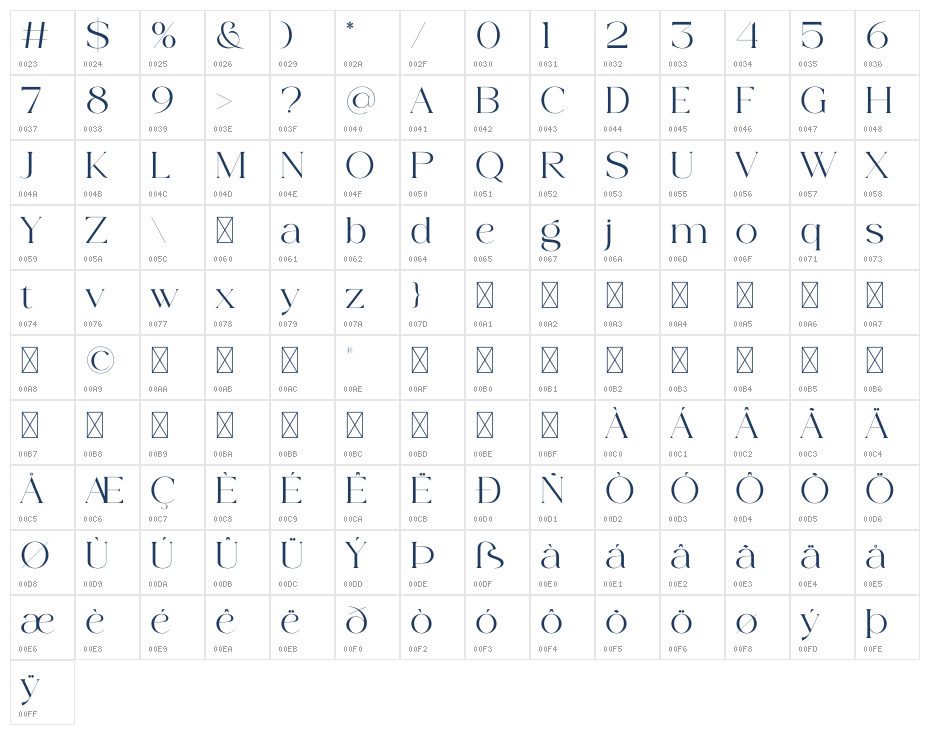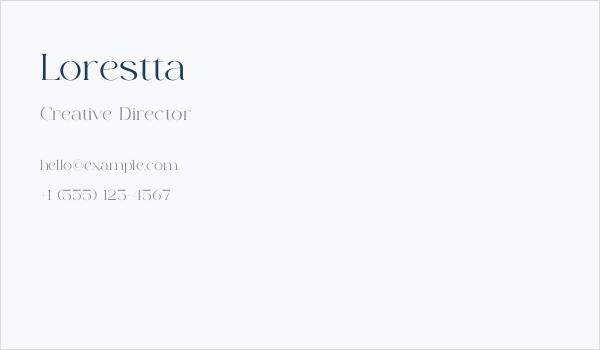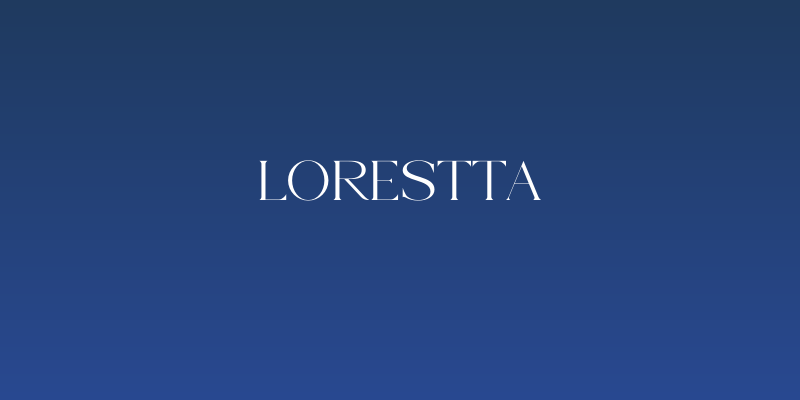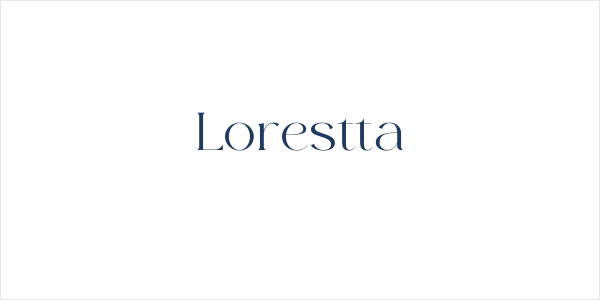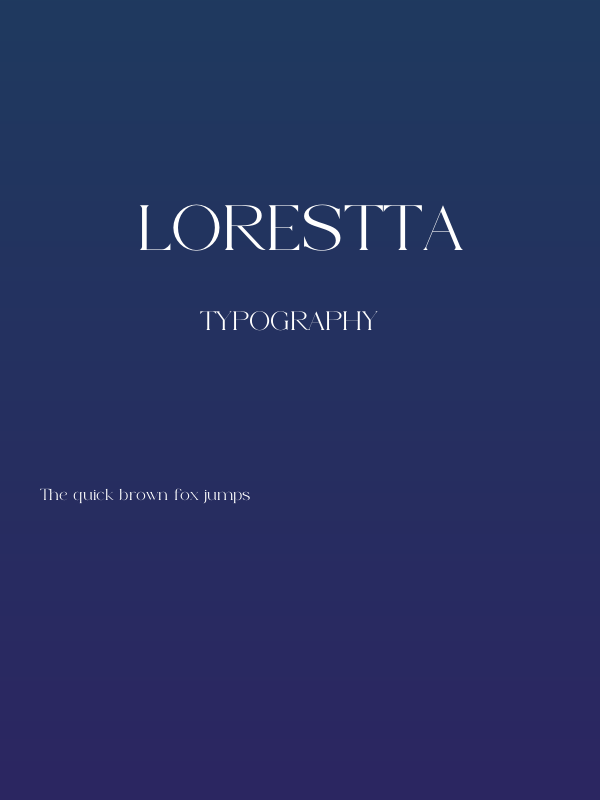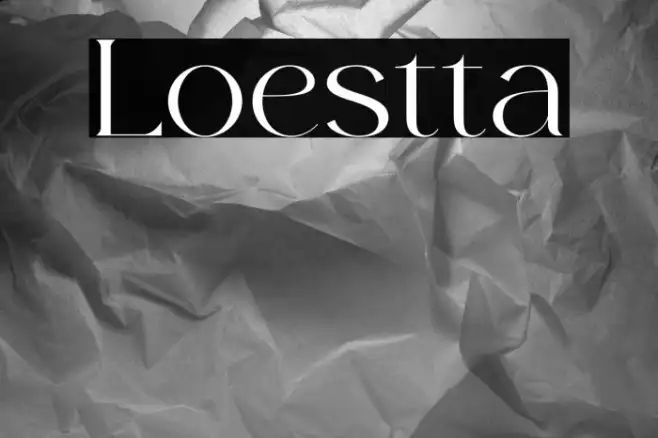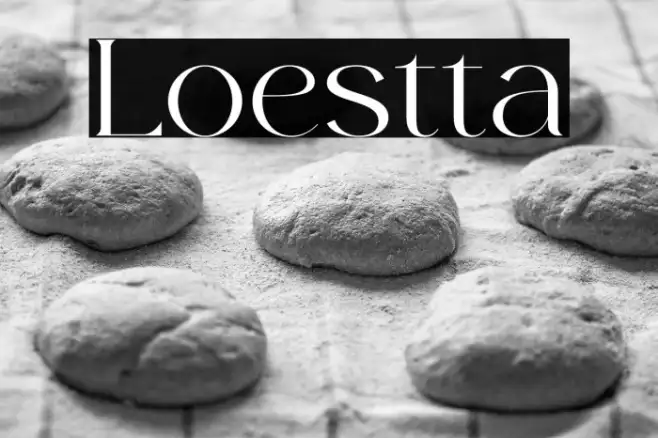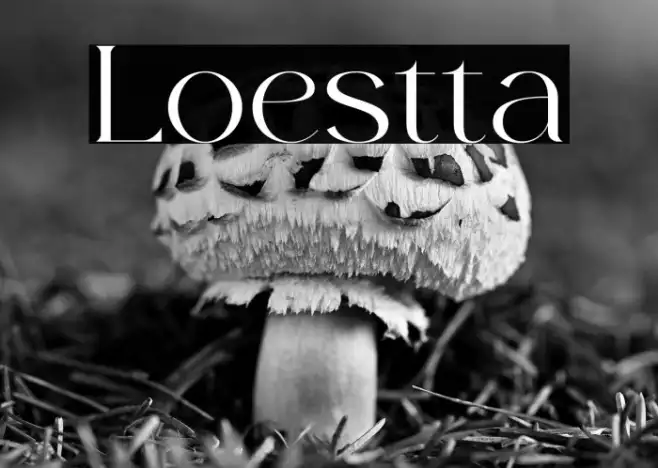
Lorestta Font
Lorestta Description
Elegant, thin serif font with high contrast and refined lines, suitable for sophisticated design.
| Overall Style | Elegant, Modern |